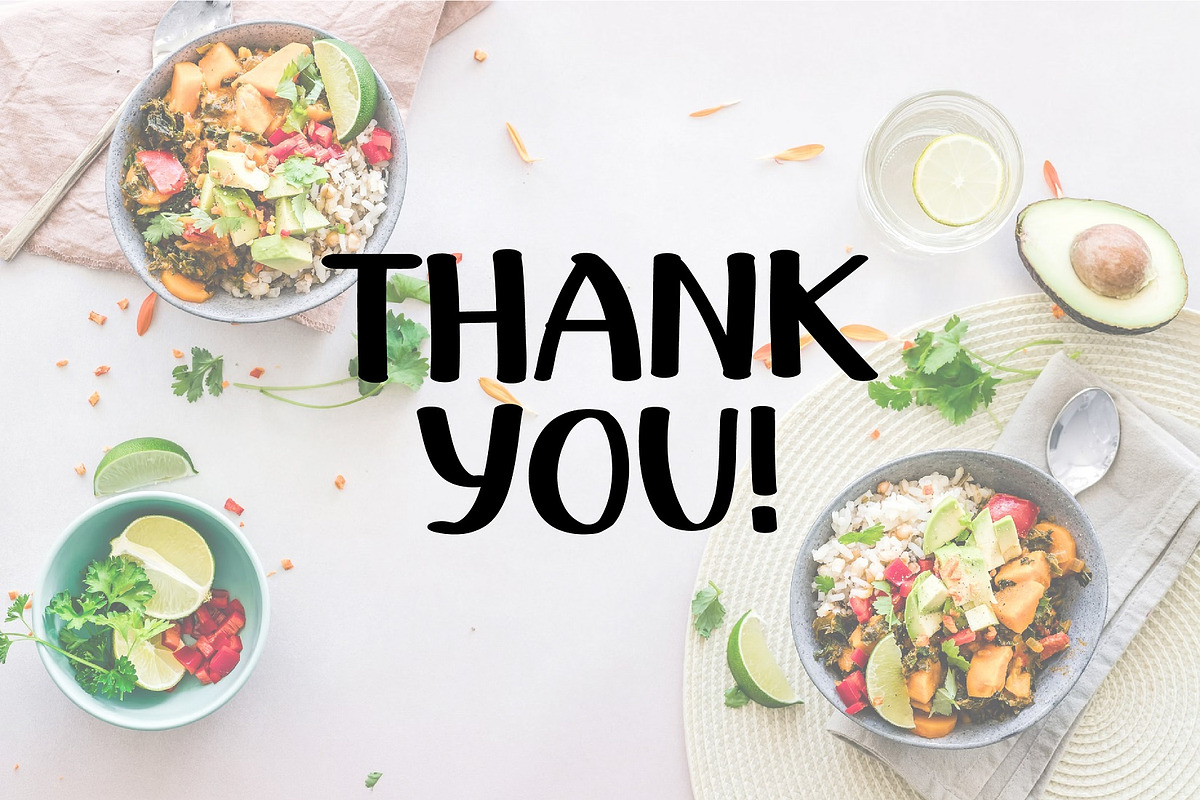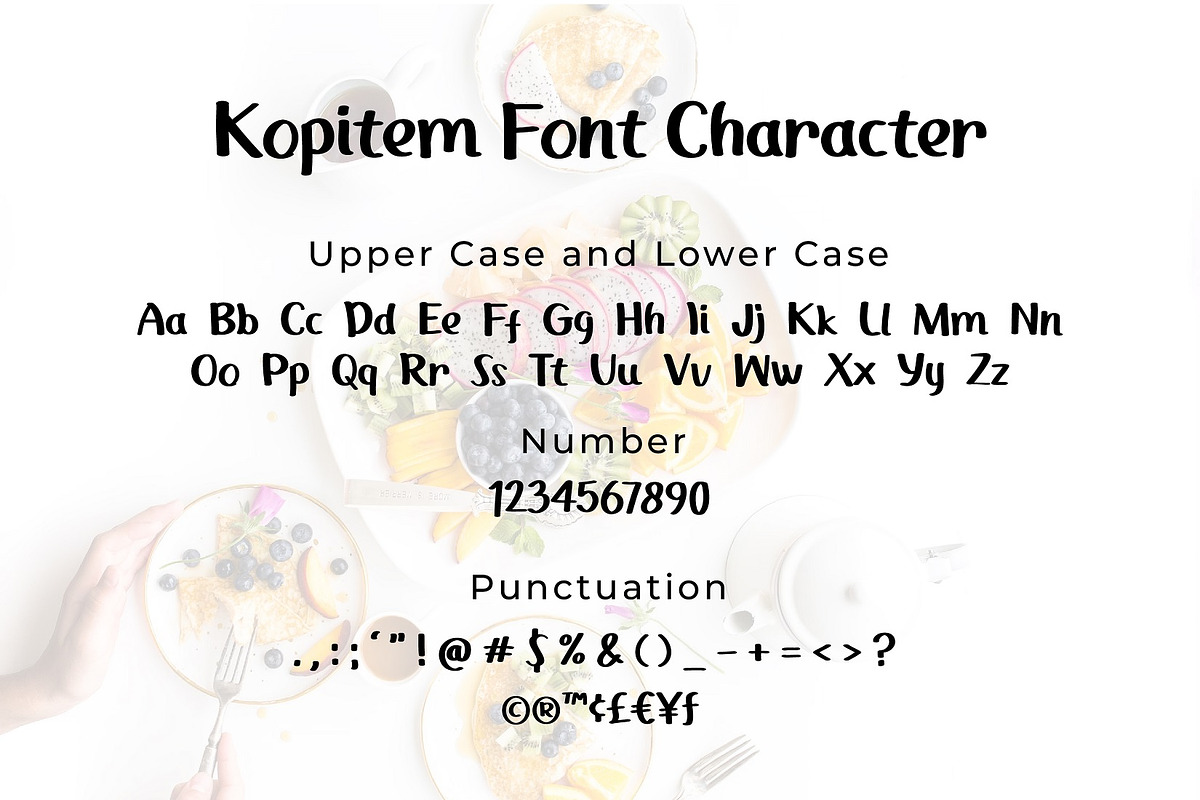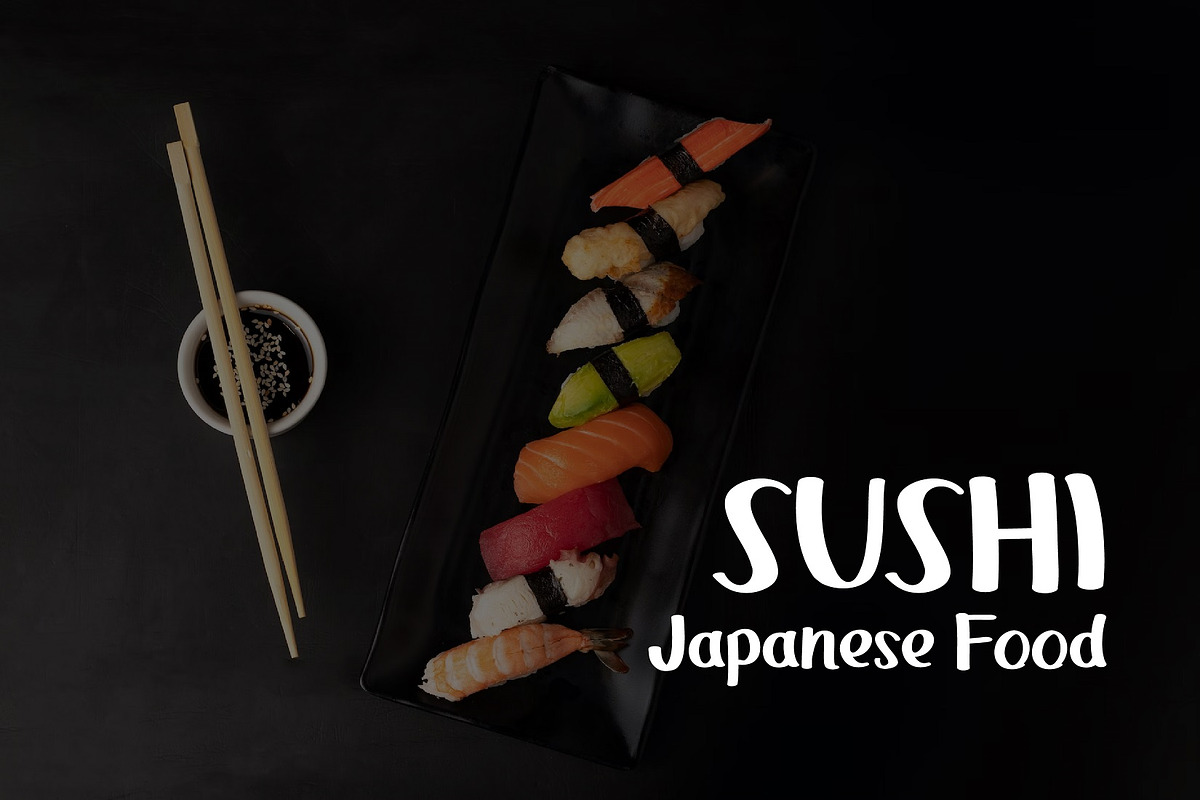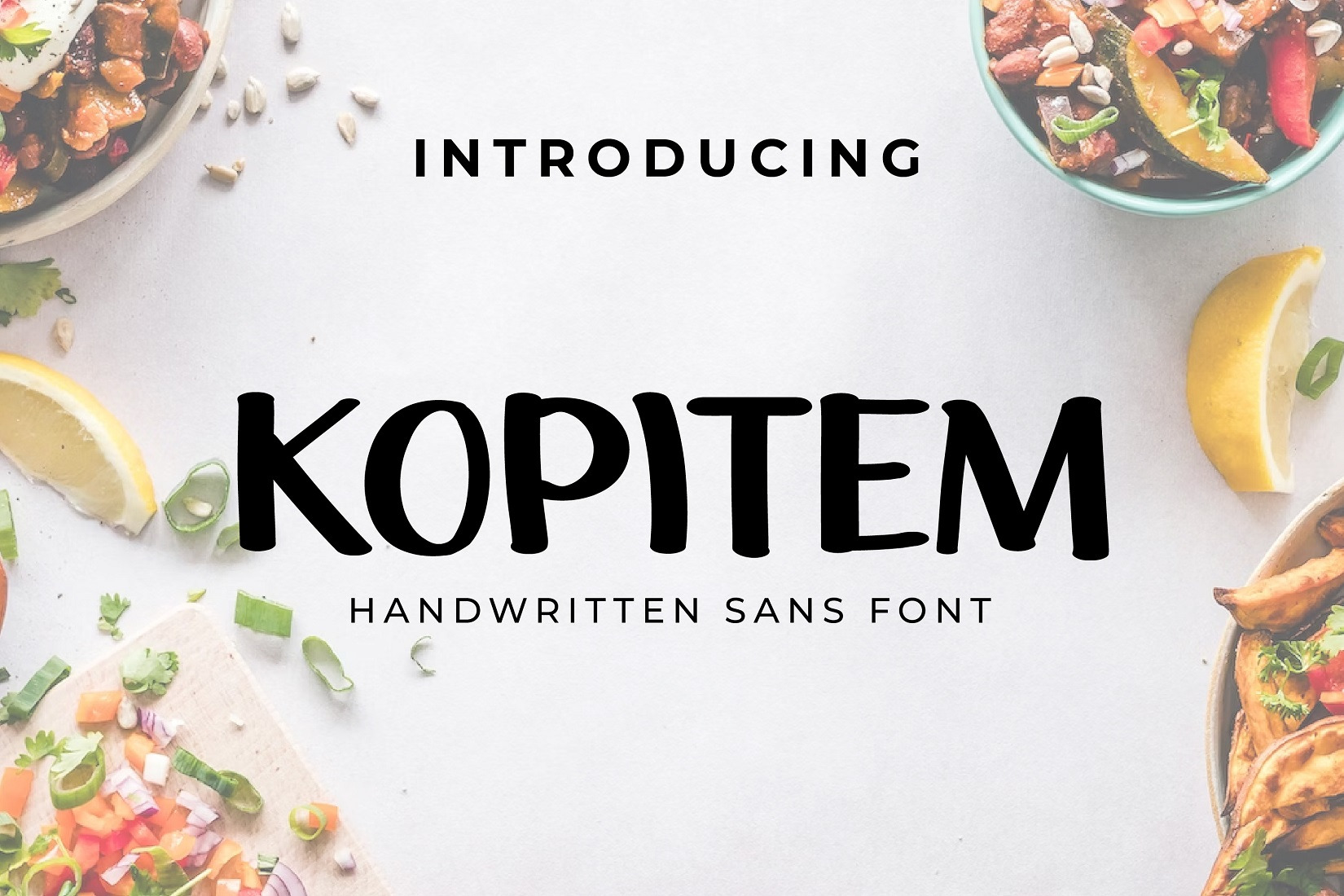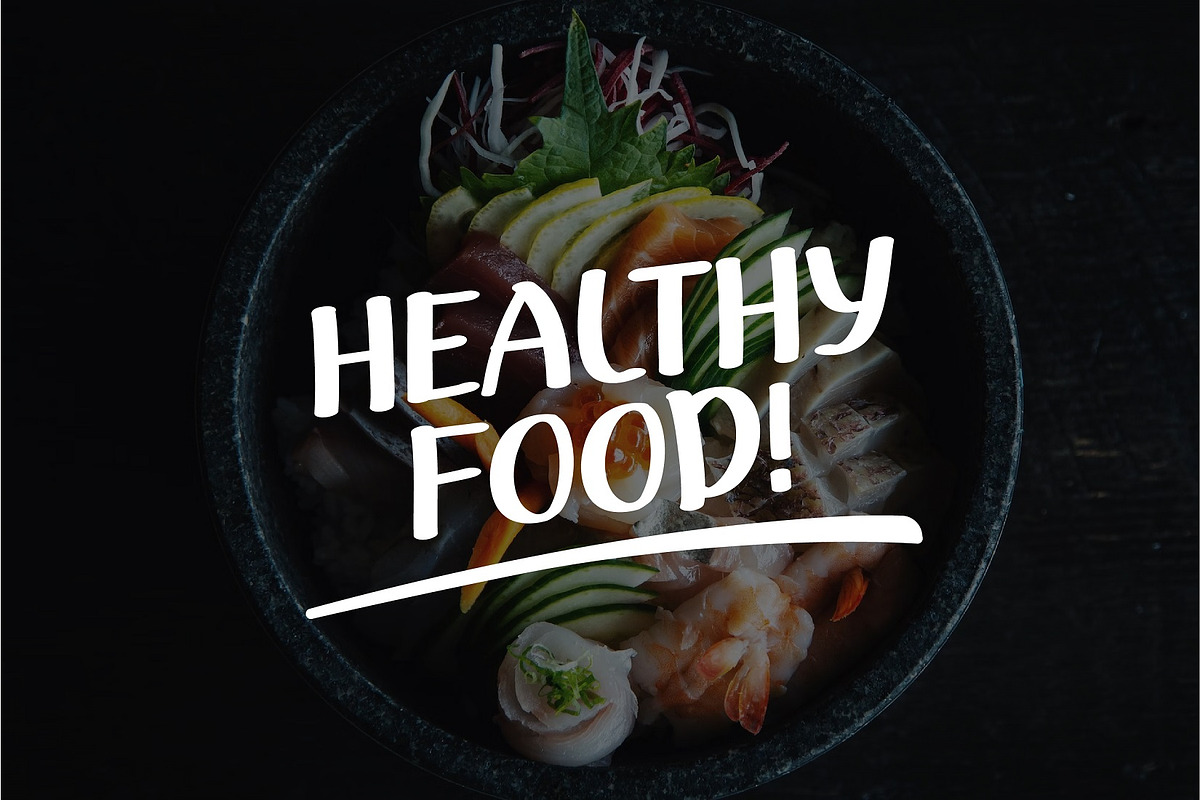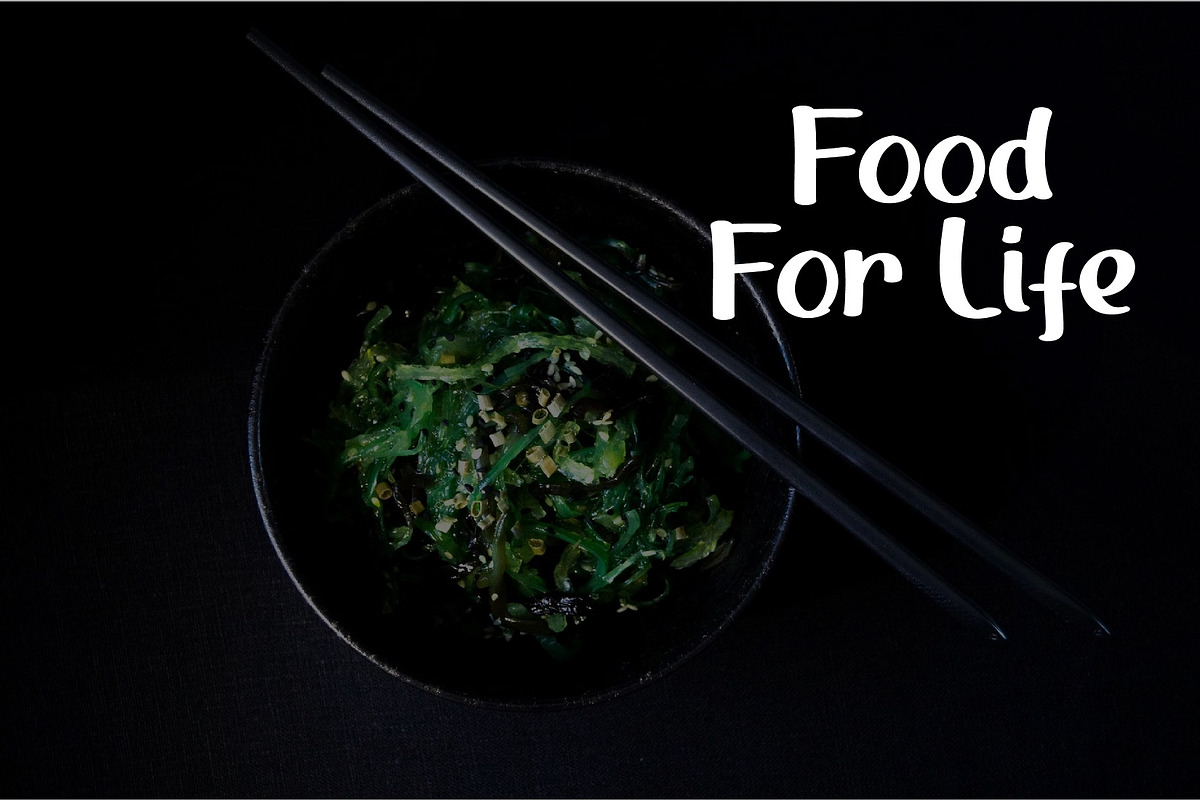
Kopitem Sans Handwritting Font
Introducing Kopitem - Sans Handwritten Font
Kopitem is a Sans Handwritten font. Perfect for branding projects, logo, wedding designs, social media posts, advertisements, product packaging, product designs, label, photography, watermark, invitation, stationery and any projects that need handwriting taste.